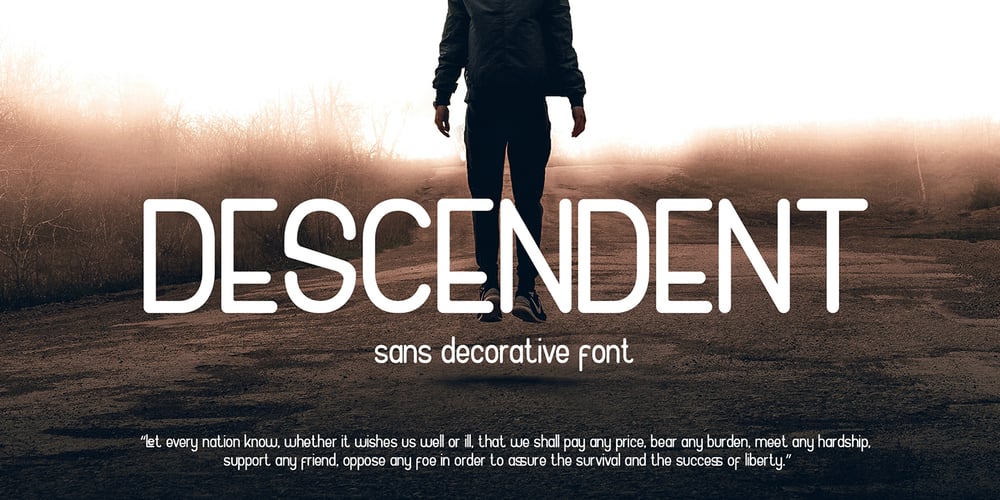
Descendent
Descendent font
Descendent Font Family was designed by Studio LetterStock and published by LetterStock. Descendent contains 1 styles and family package options. Descendent FontThis pair was inspired by the retro poster design that i saw on some coffee shop, It was crafted by hand specially to add natural handmade feeling in its brand identity than i make it clean with pentool.Opentype features Descendent font has 193 character set Descendent Font is very good looking in logo, labels, t-shirt prints, product packaging, invitations, advertising and others.What includesMultilingual support (Western European characters).This fonts works with folowing languages: Afrikaans, Albanian, Asu, Basque, Bemba, Bena, Chiga, Cornish, Danish, English, Estonian, Filipino, Finnish, French, Friulian, Galician, Gusii, Indonesian, Irish, Italian, Kabuverdianu, Kalenjin, Kinyarwanda, Low German, Luo, Luxembourgish, Luyia, Machame, Makhuwa-Meetto, Makonde, Malagasy, Malay, Manx, Morisyen, North Ndebele, Norwegian Bokmål, Norwegian Nynorsk, Nyankole, Oromo, Portuguese, Romansh, Rombo, Rundi, Rwa, Samburu, Sango, Sangu, Scottish Gaelic, Sena, Shambala, Shona, Soga, Somali, Spanish, Swahili, Swedish, Swiss German, Taita, Teso, Vunjo, ZuluThank you for using this font. LS